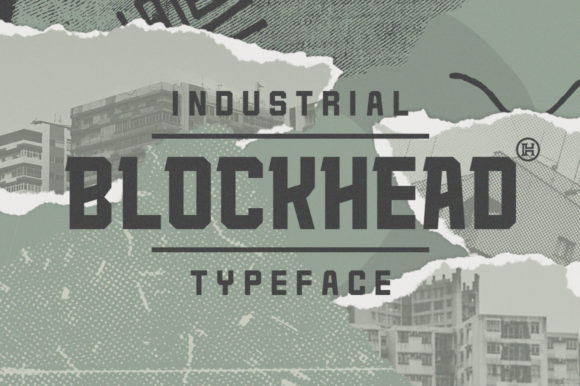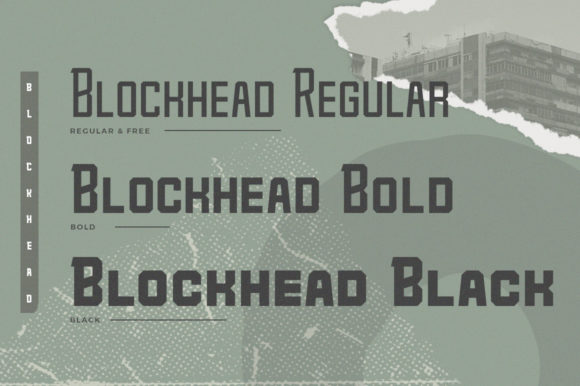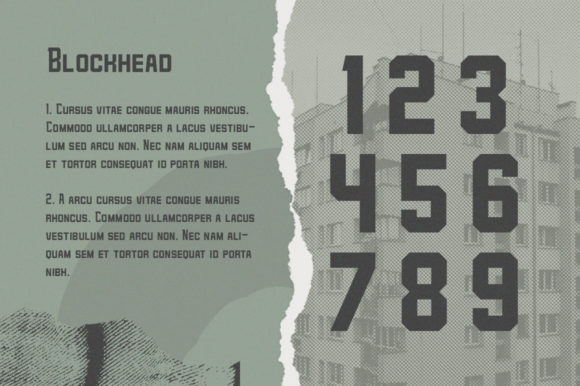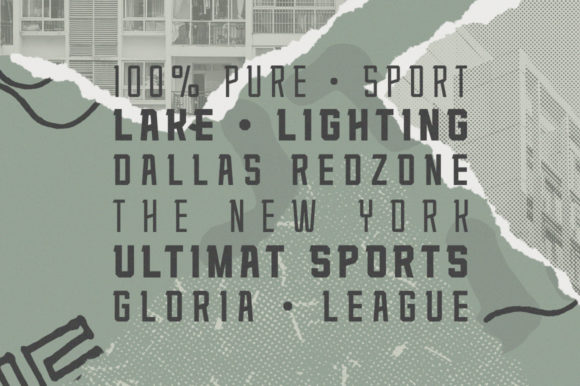
Blockhead Font
About the Blockhead Font
Presenting Blockhead Font, a unique and stylish typeface that will make your work stand out. Blockhead is a bold and powerful sans serif font with a unique touch. Get inspired by its unique feel!
Blockhead’s strong, geometric forms make it ideal for headlines, logos, and short, impactful text on posters or packaging. Its bold presence commands attention, making it perfect for brands projecting confidence and authority. However, its weight and unique character make it less suitable for body text or UI elements requiring high readability over extended lengths.
Consider pairing Blockhead with a clean, neutral sans-serif like Open Sans for body copy, to create a balanced contrast. For a more sophisticated feel, a classic serif such as Garamond would provide elegant counterpoint to Blockhead’s geometric boldness. Alternatively, a playful script font could add a touch of unexpected personality to a design using Blockhead.
The overall personality of Blockhead is bold, modern, and assertive. It is best suited for projects that require a strong visual impact and convey a sense of power or innovation.